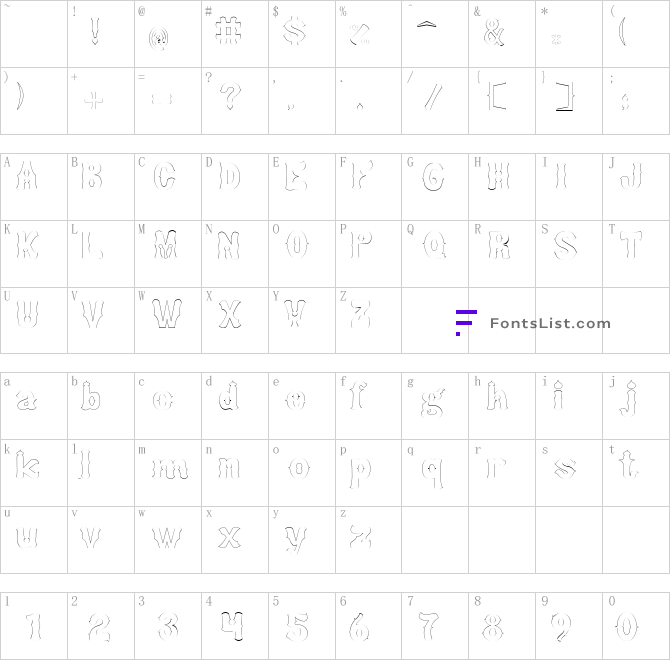
- Font Name:arab saenz3
arab-saenz3.ttf is a very beautiful artistic font, arab-saenz3.ttf is widely used in the design and printing of various books and pictures,arab-saenz3.ttf has a strong visual impact,arab-saenz3.ttf is a commonly used font in newspapers, magazines and books, and is used in posters, e-commerce Poster design, store design, logo design, font design and other fields.arab-saenz3.